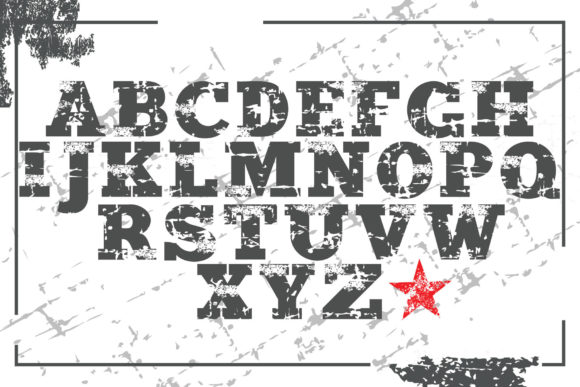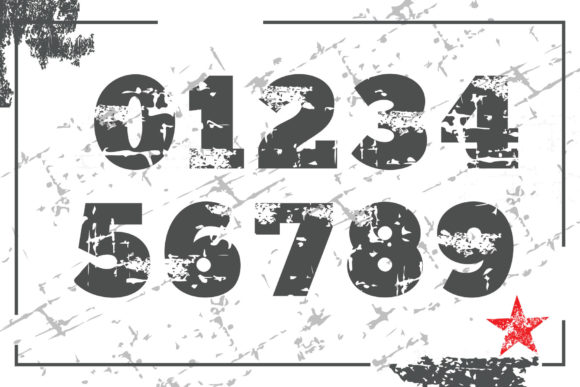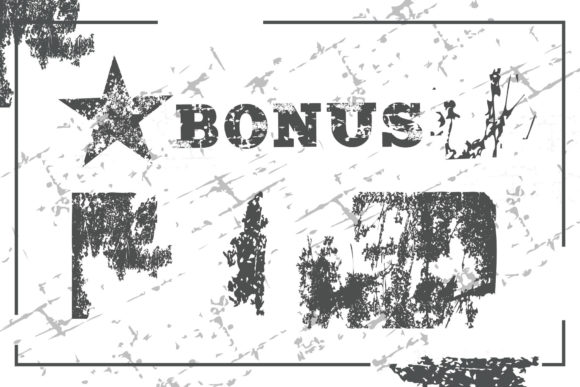
Introduction to Never Easy Font
Never Easy is a bold and assertive display font.
Sharp looking and cool, this font will truly inspire each of your works Use this font for your designs and explore its endless possibilities.
Key Features of Never Easy Font
Why Choose Never Easy Font?